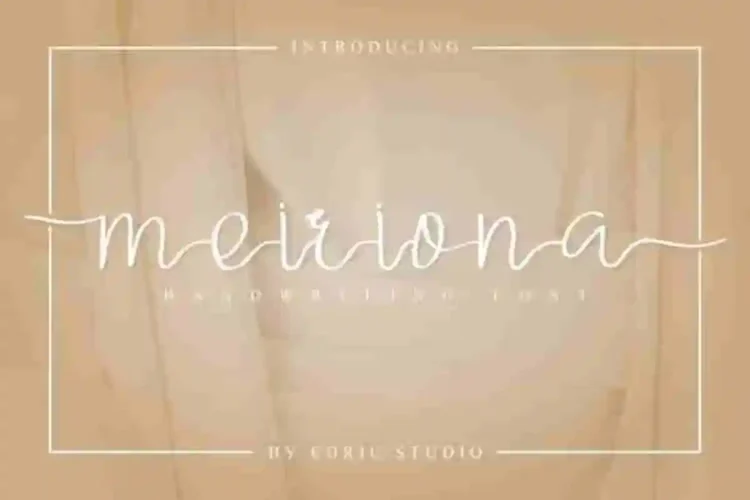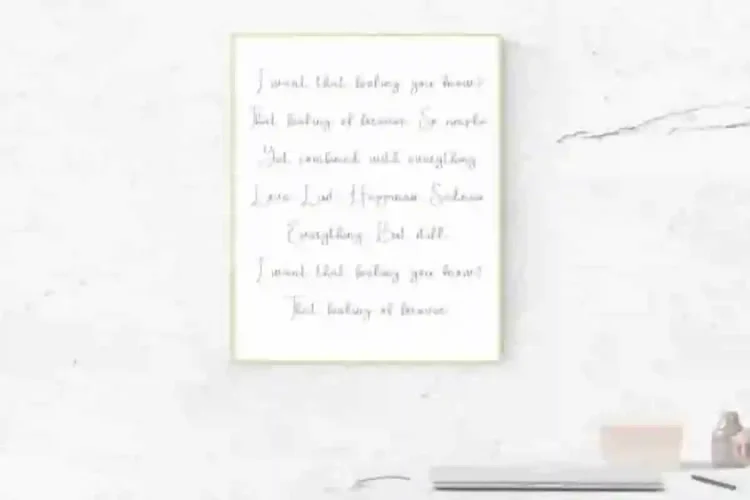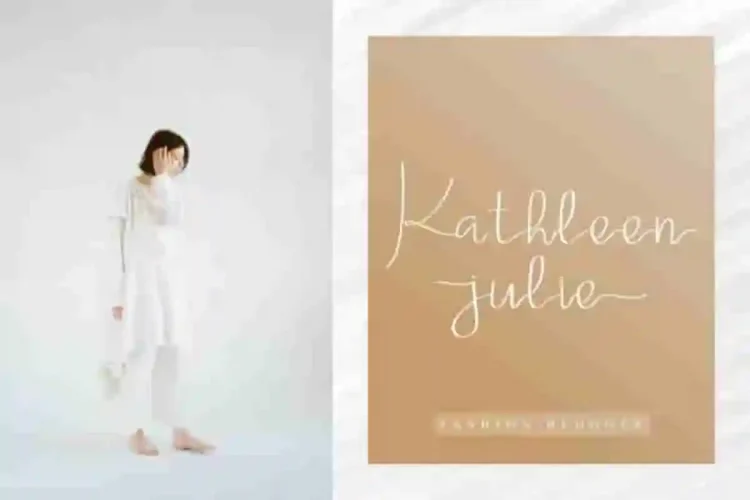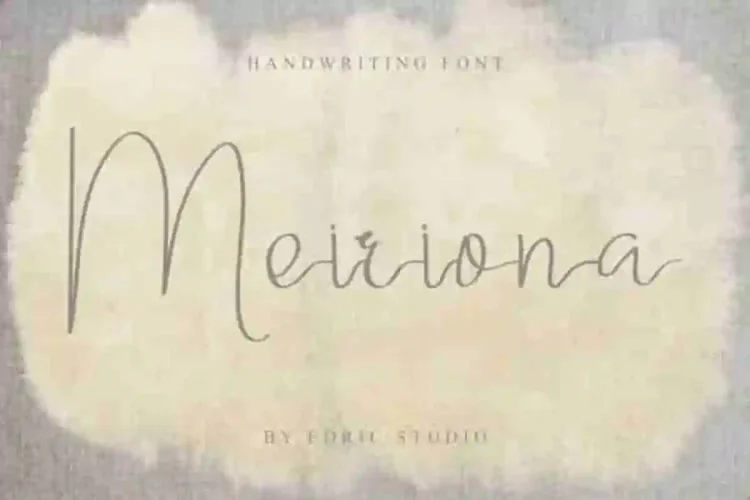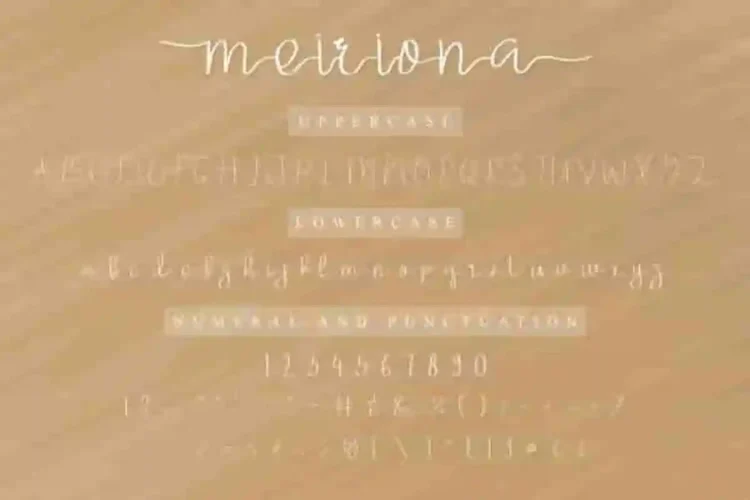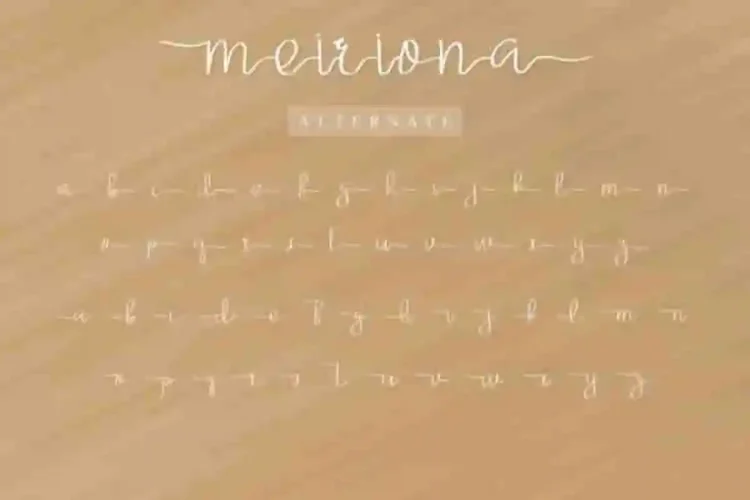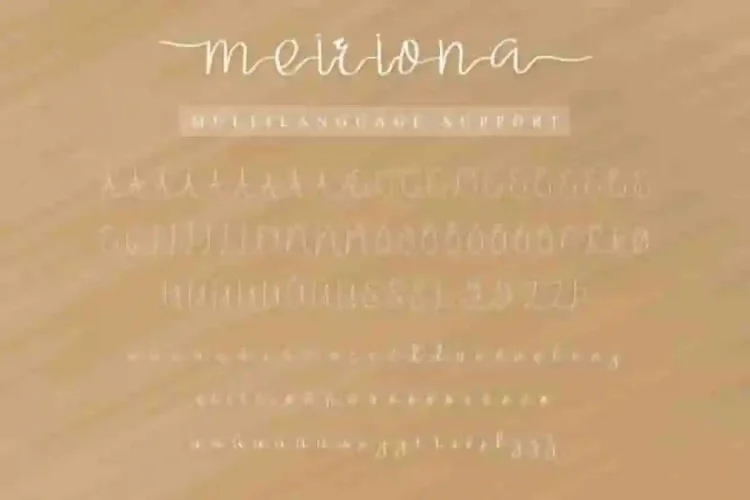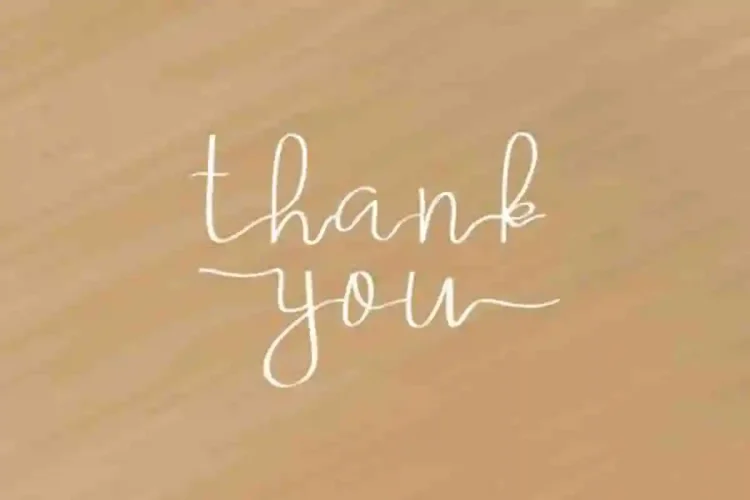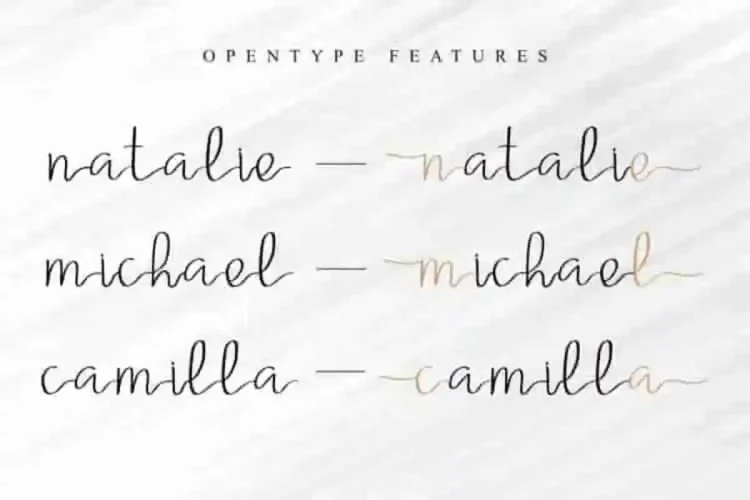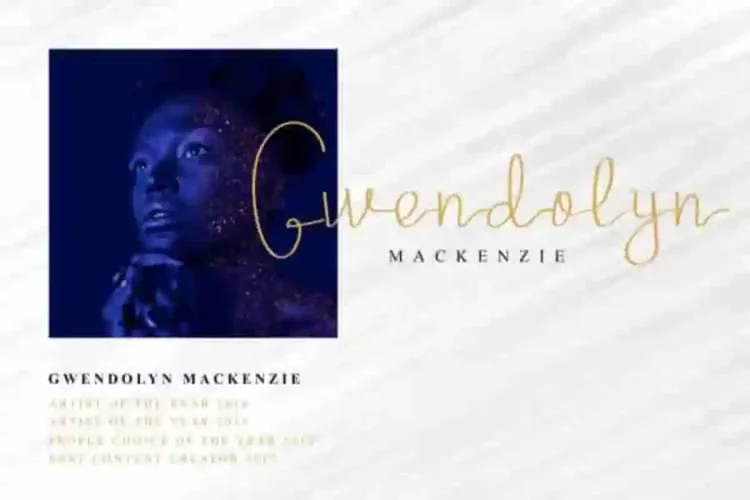
Meiriona Handwriting Font
This is Meiriona Font, our newest handwritten font. Made for you from Indonesia.
Meiriona Font this is a handwriting font with natural glyphs style. It’s categorized as a script font.
Meiriona Font has two alternatives styles for each lower case characters.  With your idea, this font will bring unlimited creative creations.
Claressa Font will be a macth for all industries : law firm, gardening, makeup artist, musician, florist, architect, real estate, interior design, cafe, etc.